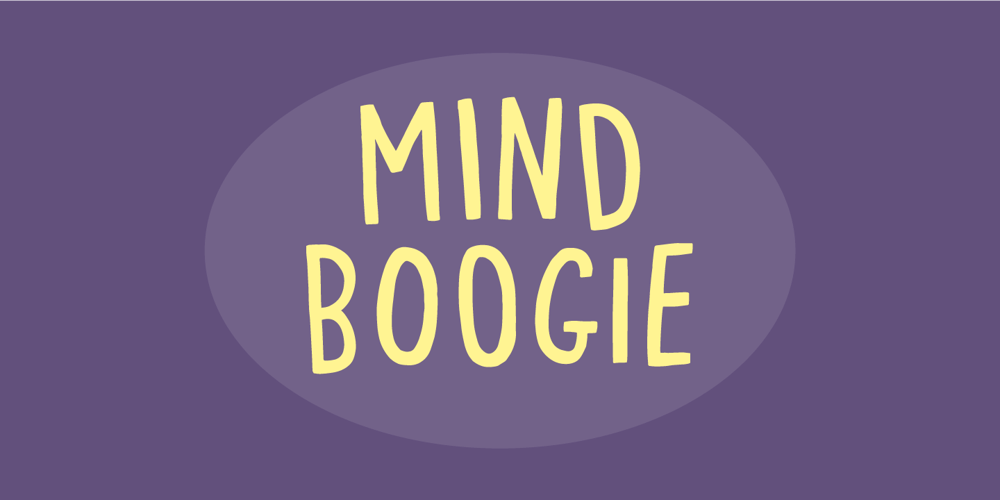
Mind Boogie Font Family was designed by Jakob Fischer and published by Bogstav. Mind Boogie contains 2 styles and family package options. Get your feet on the dance floor, and make those funky moves that you do so well!Or, you could just use this handmade all-caps font and make your designs look like it is dancing! :)Yes, it’s a handmade font – and I’ve added 6 different versions of each letter + multilingual support!